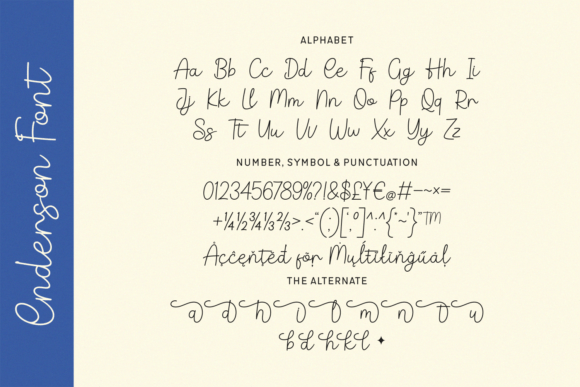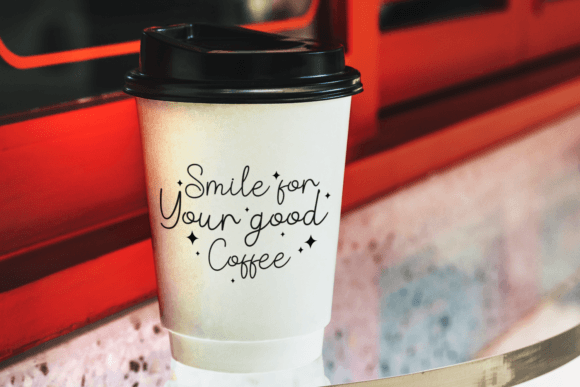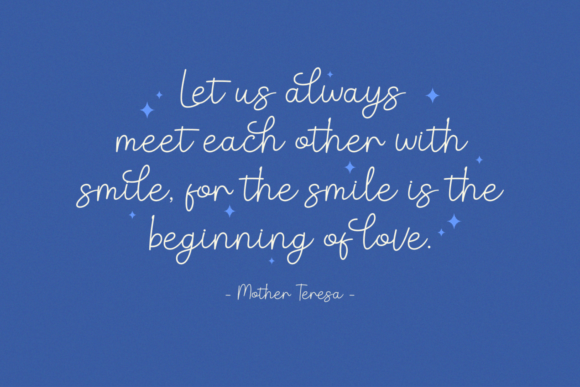
Introduction to Enderson Font
Enderson is a stylish monoline script font that features smooth, continuous lines.
It has unique swashes that add a creative touch, making it perfect for logos, invitations, and other elegant designs Its flowing style gives a modern and artistic feel, while still being easy to read.